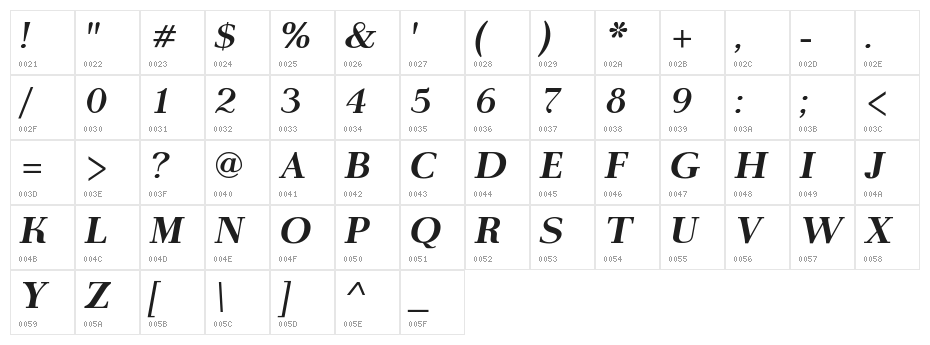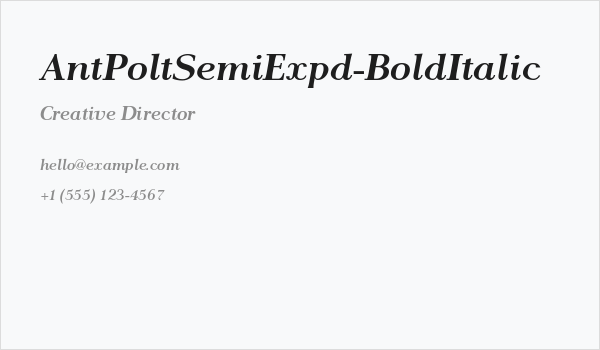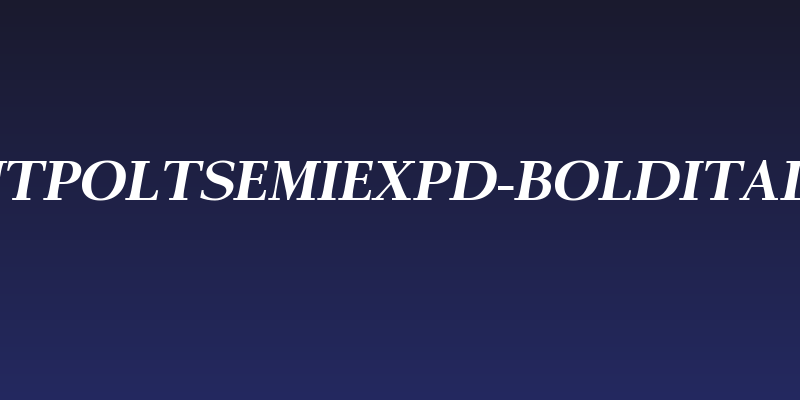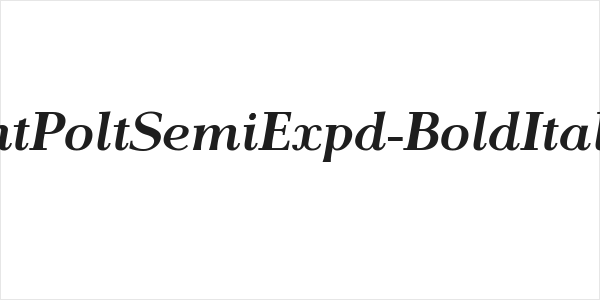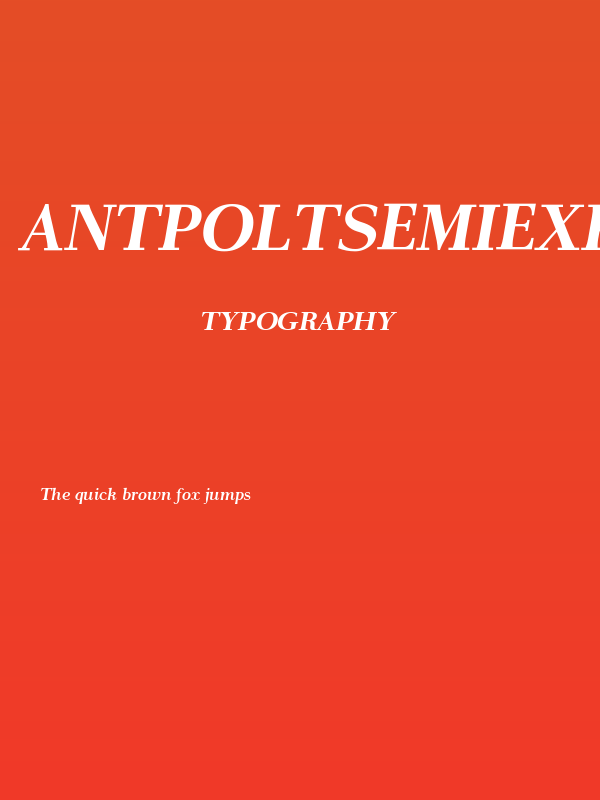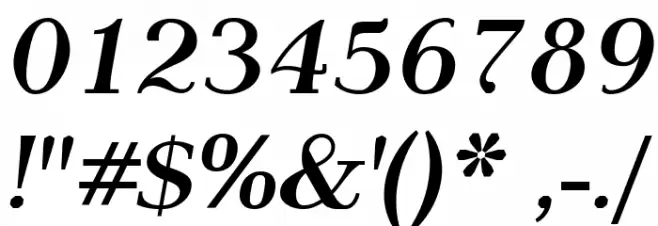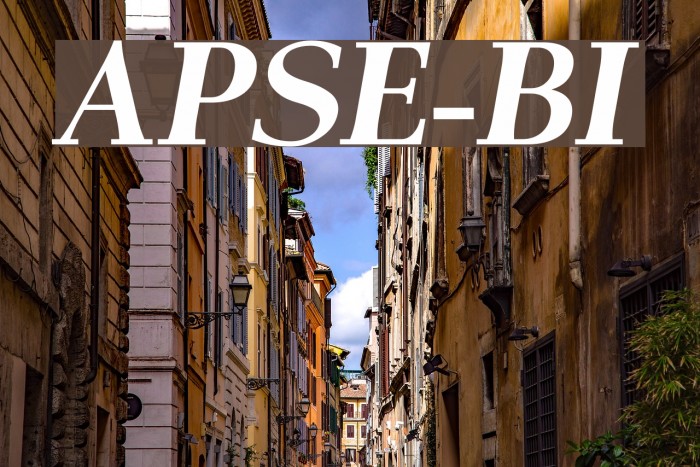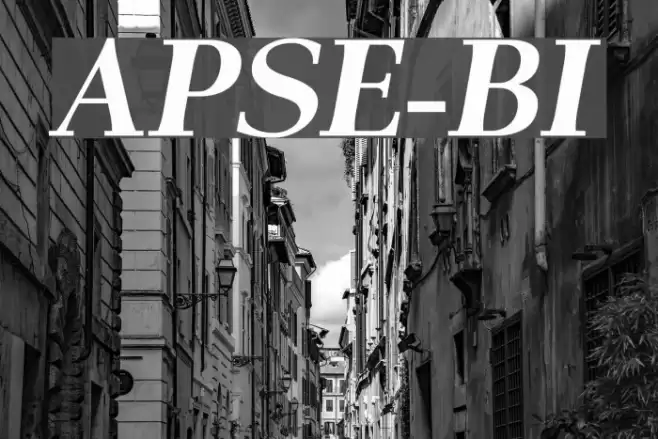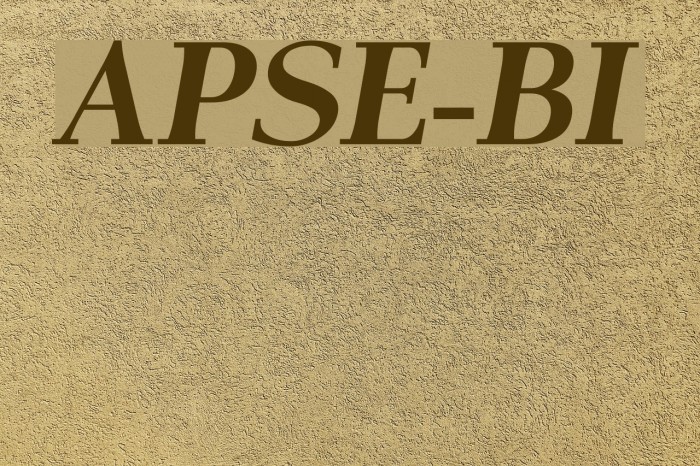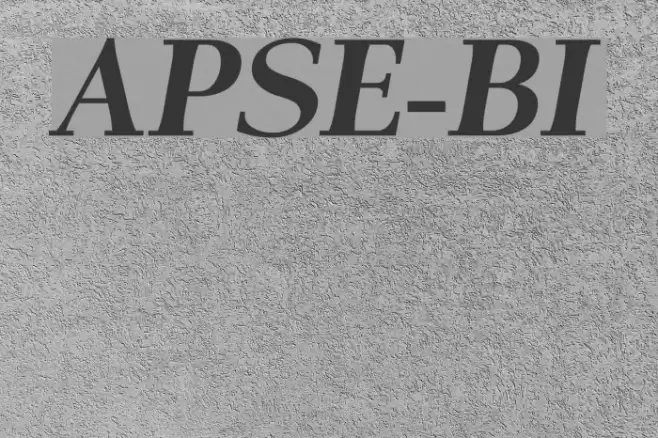
AntPoltSemiExpd-BoldItalic Font
AntPoltSemiExpd-BoldItalic Description
This font features a classic serif style with a modern twist, characterized by its semi-expanded width and bold italic presentation. The serifs are pronounced, providing a traditional feel, while the italic slant adds a dynamic and elegant touch. The bold weight ensures strong visibility, making it suitable for impactful headlines. The characters are well-proportioned, with a slight contrast in stroke thickness that enhances readability. The numerals and special characters maintain the same stylistic features, ensuring consistency across all text elements.
| Proposed Projects | Ideal for editorial design, branding projects, and elegant invitations where a touch of sophistication is desired. |